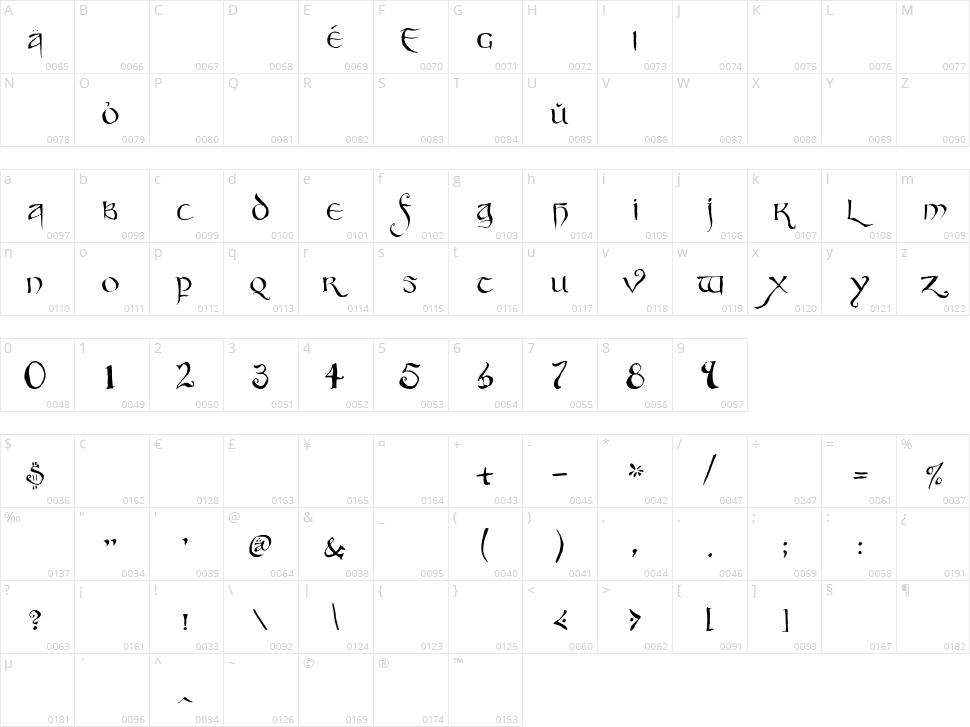
Party Business
Queen of Spain
Party Business v1.0
To utilize the markings above the vowels, capitalize those vowels. There are no other capitals in this set, as Bilbo's handwriting doesn't use them.